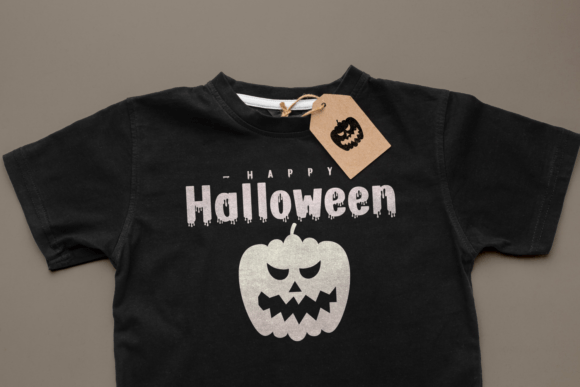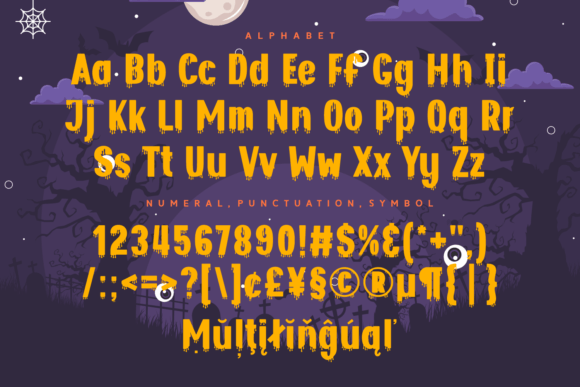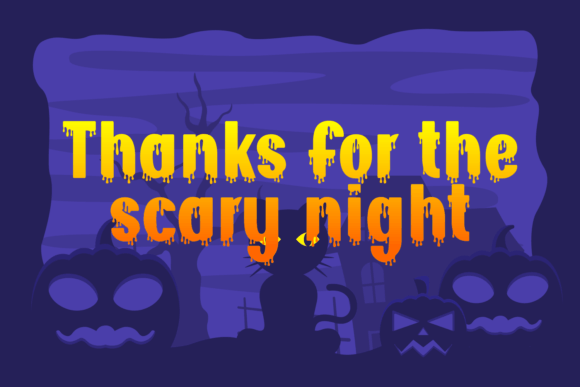
The Perfect Font for a Spooky Night
As the sun sets on a crisp autumn evening, and the moon casts an eerie glow over the landscape, I find myself itching to unleash my creative spirit. There’s something about the air on Halloween night that sparks my imagination, and I’m convinced it’s the perfect time to let my creativity run wild. Whether I’m crafting a spooky poster or designing a haunted house invitation, I know exactly what font I need to set the tone – the Bloody Pumpkin Font.
This festive typeface is the perfect accompaniment to any Halloween-themed project, adding a touch of eerie elegance to your designs. With its PUA encoding, you’ll have access to a wide range of glyphs, allowing you to customize your creations to perfection. As a designer, you know the value of a versatile font that can elevate your work and make it stand out from the crowd. The Bloody Pumpkin Font is sure to be a hit this Halloween season, and with its ease of use, you’ll be able to create eye-catching designs in no time.
Bloody Pumpkin Font Key Features
- Unique Characteristics: The Bloody Pumpkin Font features a unique, hand-drawn design with a distressed, vintage look that adds a touch of horror and mystery to any project.
Bloody Pumpkin Font Review
First impressions are everything, and the Bloody Pumpkin Font certainly grabs your attention ✨. The unique blend of gothic and horror-inspired elements makes it a standout choice for designers looking to add a touch of darkness to their projects.
The font’s attention to detail is impressive, with subtle texture and gradient effects that add depth and character to the design ✨. The Bloody Pumpkin Font is also highly customizable, making it easy to adjust the font’s color, size, and style to fit your specific needs.
- ⚠️ Limited language support: The Bloody Pumpkin Font may not be suitable for projects that require support for multiple languages, as it is primarily designed for Latin-based alphabets.
- ⚠️ Limited script support: While the font includes some basic script elements, it may not be comprehensive enough for projects that require more complex script support.
- ⚠️ Limited web font compatibility: Some web browsers may not render the Bloody Pumpkin Font correctly, which could lead to display issues in certain environments.
Overall, the Bloody Pumpkin Font is a great choice for designers who want to add a touch of horror or gothic flair to their projects ✨. However, it may not be the best fit for projects that require extensive language or script support.
The Bloody Pumpkin Font is perfect for:
- Halloween-themed designs
- Spooky or eerie designs
- Creepy or mysterious designs
Remember to use the font in context and adjust the font size and style to get the best results.